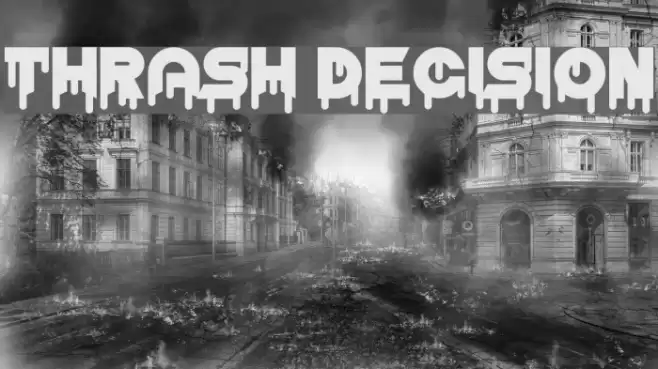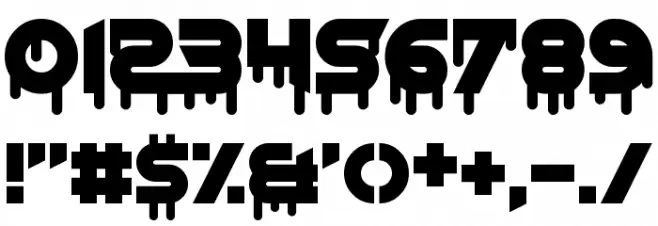
Thrash Decision Font
Thrash Decision Description
This font features a bold and dramatic design with a dripping effect that gives it a unique, edgy appearance. The characters are thick and heavy, with a consistent width that maintains readability despite the decorative elements. The dripping effect adds a sense of movement and fluidity, making it ideal for projects that require a striking visual impact. The uppercase and lowercase letters, as well as numbers and special characters, all share this cohesive style, ensuring versatility across different uses.
A bold, dripping font with a striking, edgy appearance from Uncategorized fonts.
- Proposed Projects: Ideal for horror-themed designs, music album covers, event posters, and any project requiring a bold, eye-catching typeface.
- Overall Style: Modern, Decorative